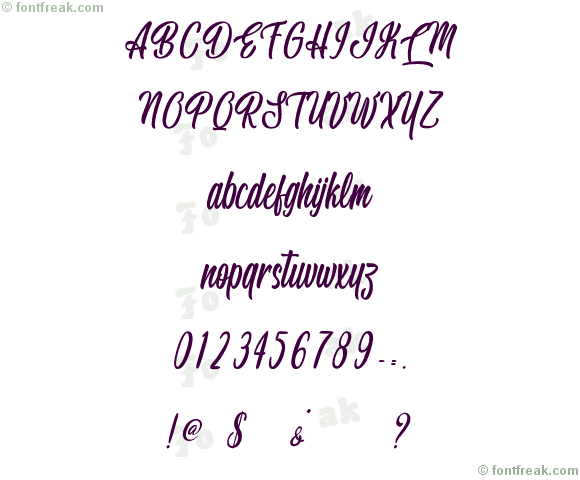
Handsome Boss - Personal Use
About Handsome Boss - Personal Use
Handsome Boss - Personal Use is a captivating script font designed by Suthi Srisopha, classified under the decorative category. This font exudes elegance and charm, making it ideal for a variety of personal projects. Its visual characteristics include a smooth, flowing stroke that varies in weight, creating a dynamic contrast that adds depth and interest. The letters are well-spaced, ensuring readability while maintaining a stylish appearance. Decorative elements such as whimsical curves and playful flourishes give the typeface a unique personality, perfect for making a statement.
This font is particularly suited for wedding invitations, where its romantic aesthetic can set the tone for a special day. It also works beautifully for greeting cards, allowing users to convey heartfelt messages with a touch of sophistication. Additionally, Handsome Boss is an excellent choice for branding applications, such as logos for boutique shops or artisanal products, where a personal touch can enhance brand identity. Content creators can also benefit from the font’s appealing style in social media graphics, adding a flair that captures attention.
What truly sets the Handsome Boss - Personal Use font apart is its ability to blend elegance with personality. Its graceful strokes and distinctive style not only enhance visual appeal but also convey a sense of warmth and approachability. For anyone looking to elevate their design projects, the Handsome Boss - Personal Use font free download offers a delightful option that combines functionality with artistic flair.